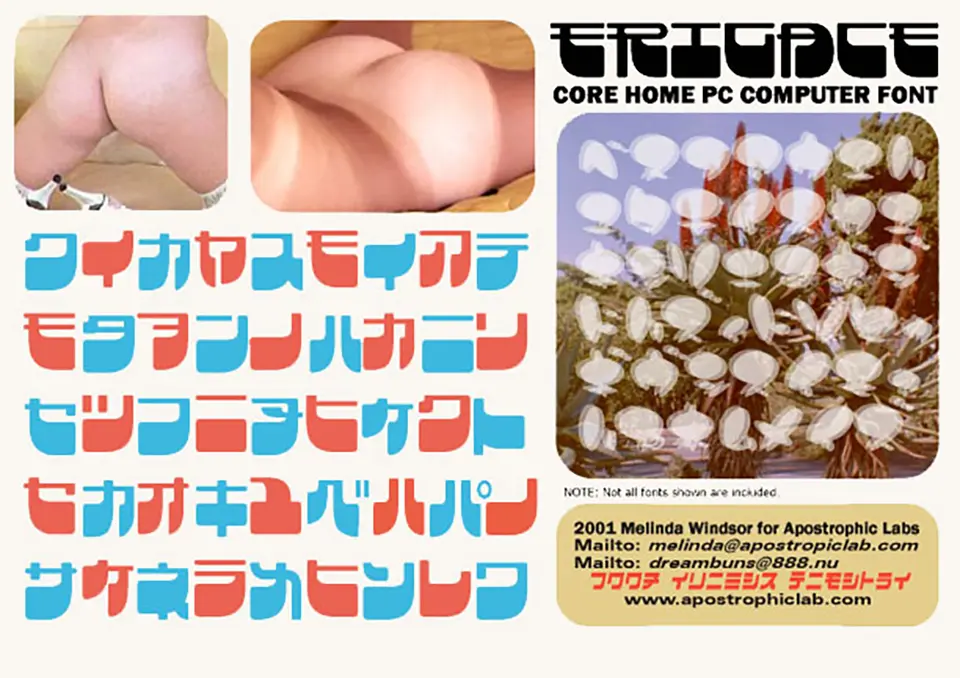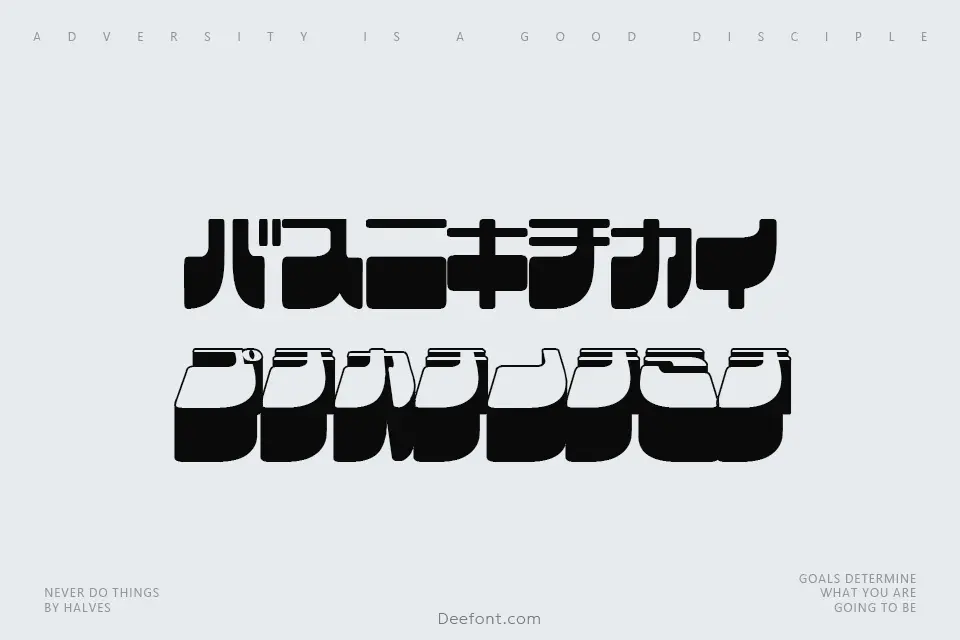
Frigate Katakana Font Family
Frigate Katakana Font Family is a distinctive dingbats-style typeface designed by Melinda Windsor for Apostrophic Labs, primarily featuring stylized katakana characters from the Japanese writing system. Known for its bold, geometric aesthetic, the font employs thick, uniform strokes and high-contrast shapes that create a striking visual impact ideal for titles, logos, and graphic design projects. The family includes multiple variants such as 3D, Condensed, and Light versions, offering versatility across different design contexts. Its blocky forms and architectural precision make it particularly effective in posters, gaming interfaces, and cultural branding where strong typographic presence is required.